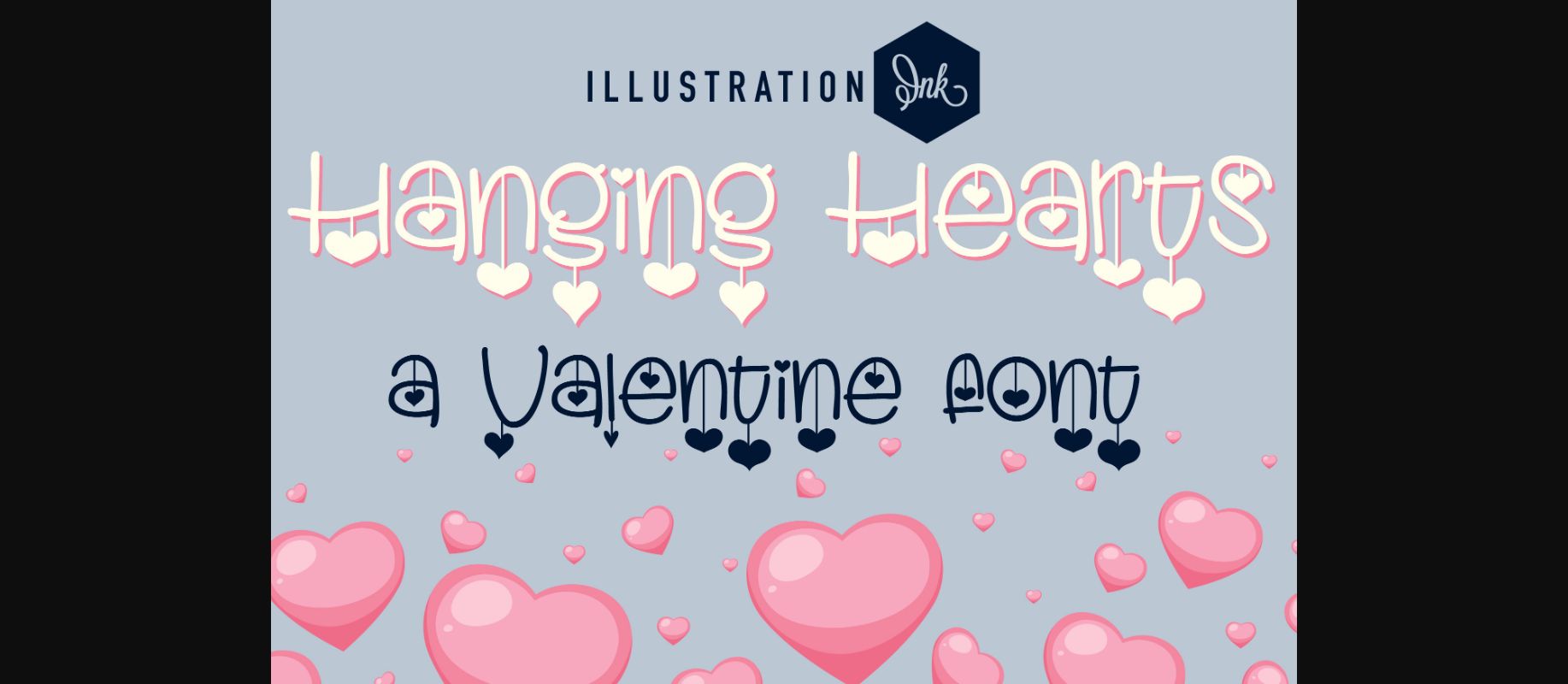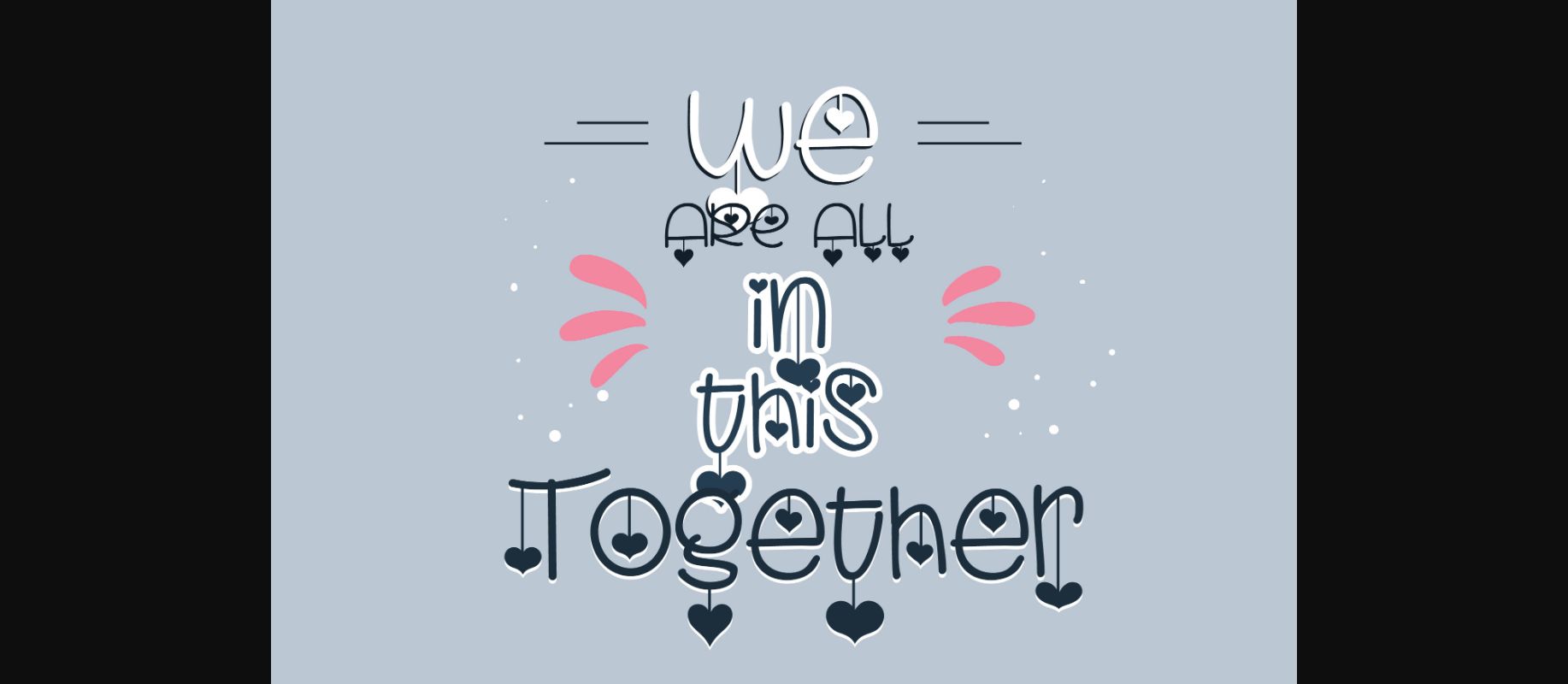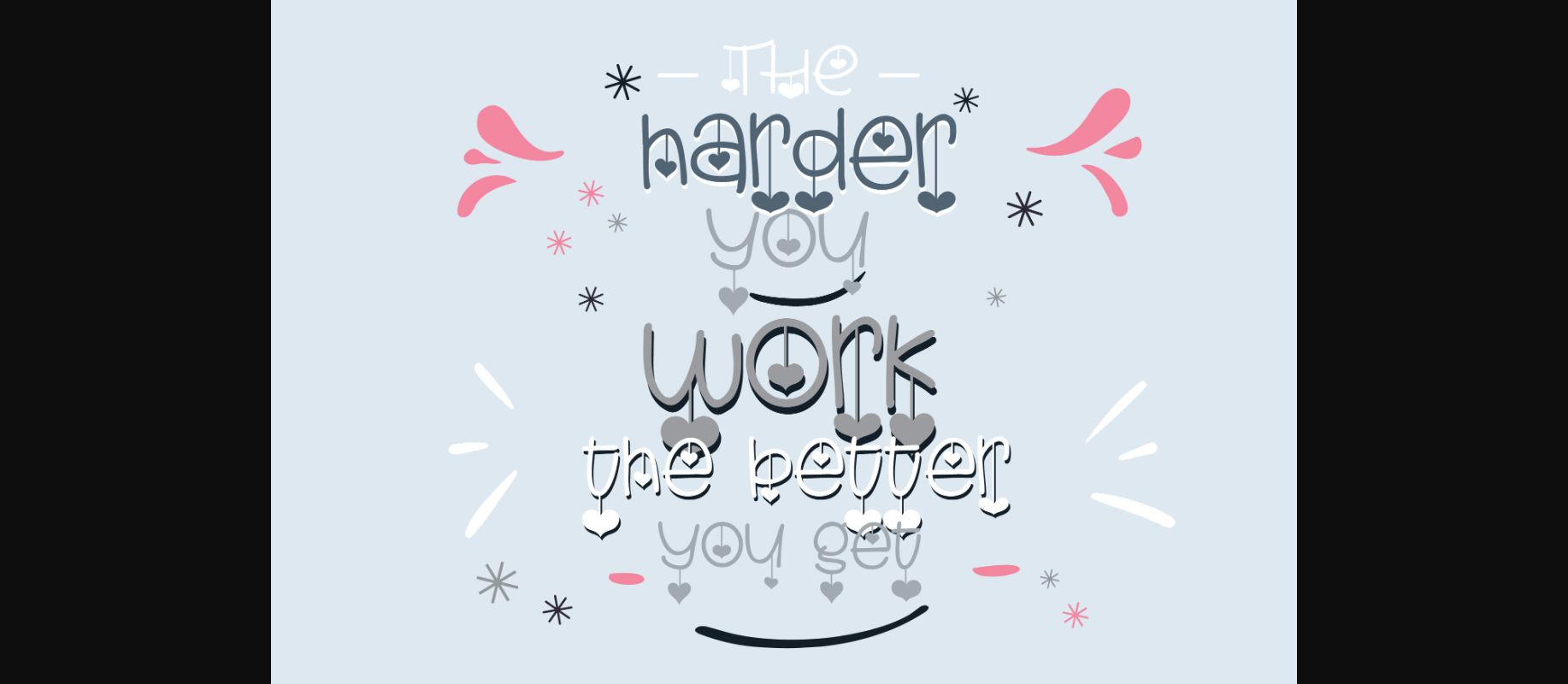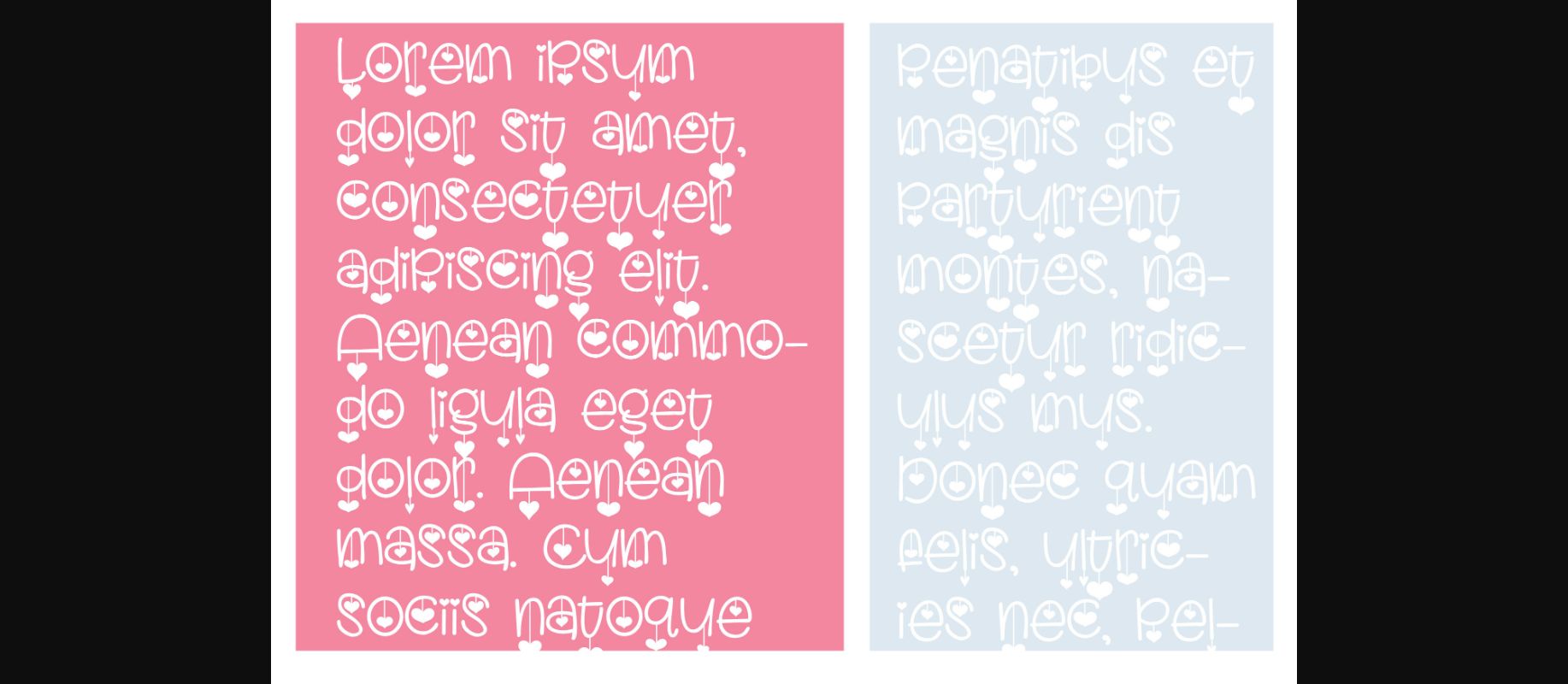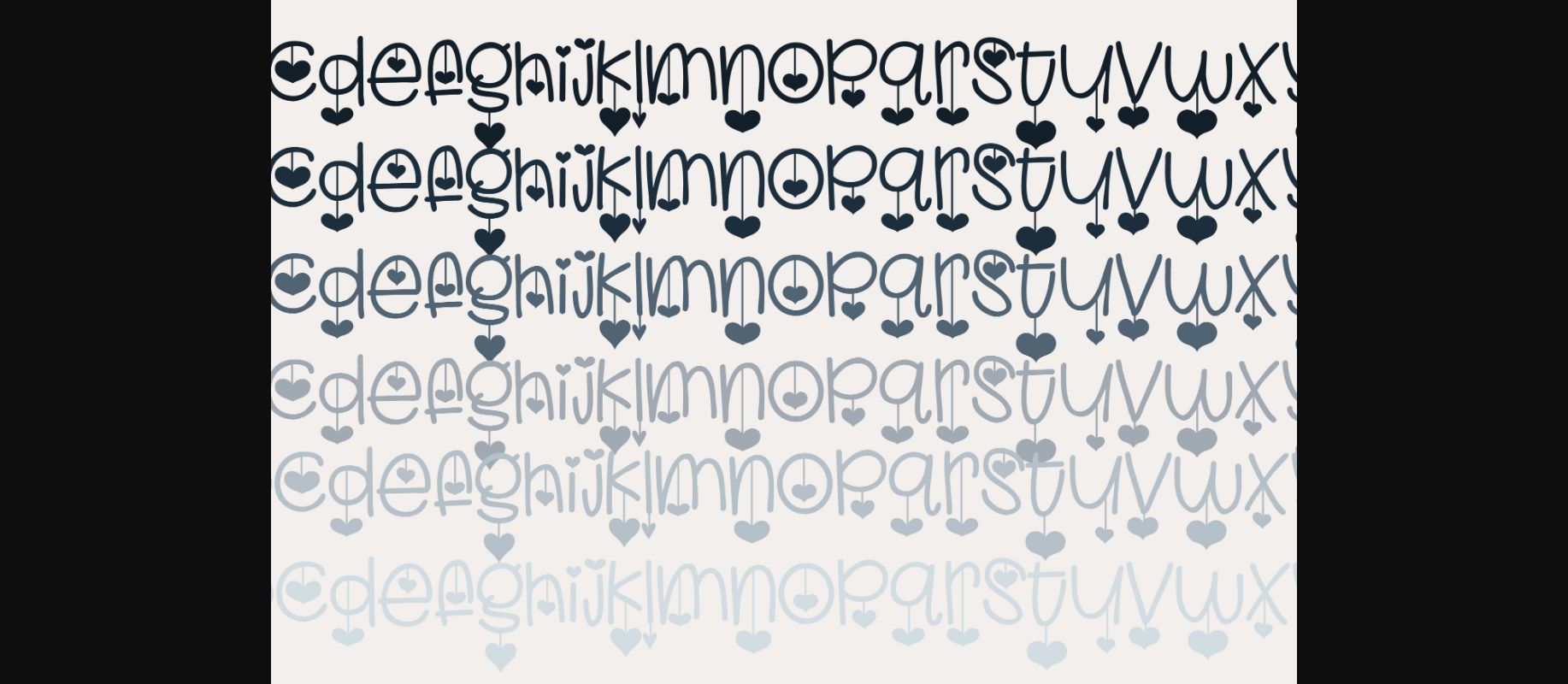
Hanging Hearts Font
About Hanging Hearts Font
This handwritten decorative font is youthful and sports hearts throughout. Hanging Hearts will work equally great as a typeface and as a decoration!